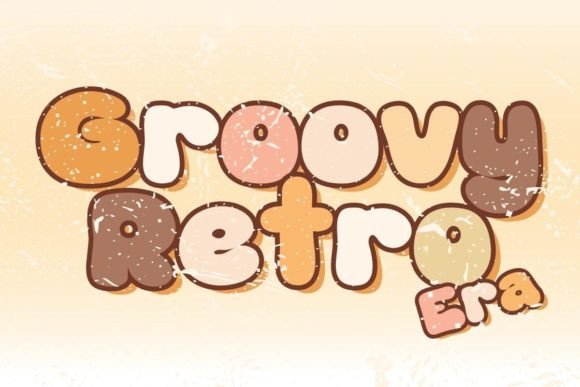
Step into the whimsical world of text with “Groovy Retro Era” – where letters groove and characters shimmy with playful charm. This font dances through time, fusing nostalgia with a modern twist. Let your words don the groove and invite creativity to your design journey. Embrace the retro vibe, font-lovers!